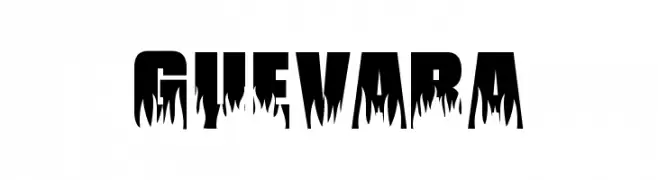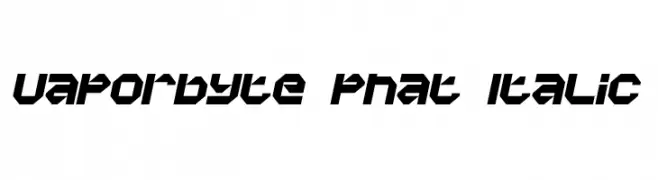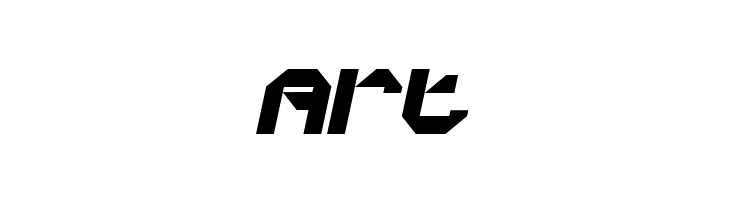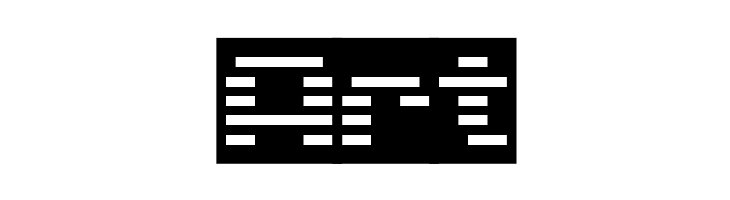
A decorative font with a fragmented, abstract style and a distressed aesthetic.
A bold, italicized font with a futuristic, geometric design.
An organic, vine-like font with jagged edges and a hand-drawn feel.
A pixelated, digital-style font with a retro, tech-inspired look.
A bold, dripping font with a rebellious, graffiti-inspired style.